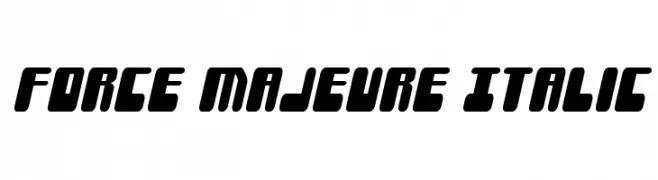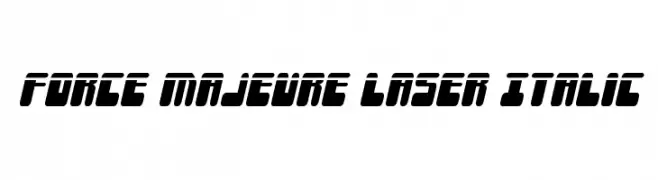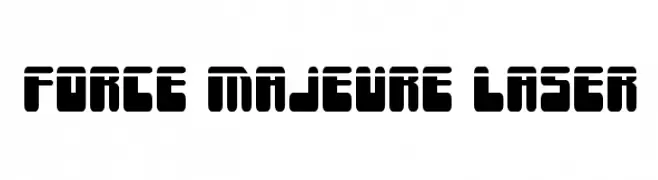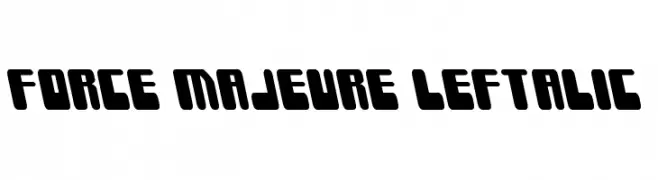
A bold, expanded italic font with rounded edges and a modern look.
A bold, modern font with a unique gradient effect and geometric structure.
A bold, italicized font with a gradient effect and futuristic style.
A bold, geometric font with a halftone effect, perfect for modern and futuristic designs.
A bold, italicized font with a futuristic halftone effect.
A bold, italicized font with a modern, dynamic style and tight character spacing.
A bold, futuristic font with geometric shapes and rounded edges.
A bold, italic, futuristic font with a stencil-like design and rounded edges.
A bold, left-leaning font with a geometric and dynamic style.
A bold, geometric font with a three-dimensional effect and rounded corners.